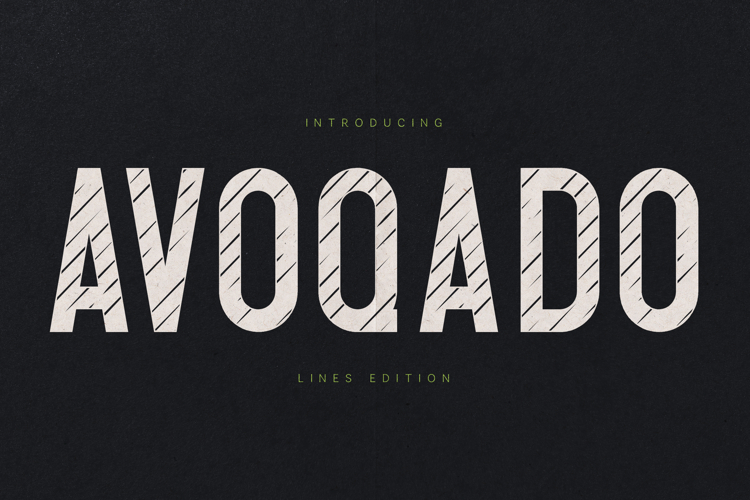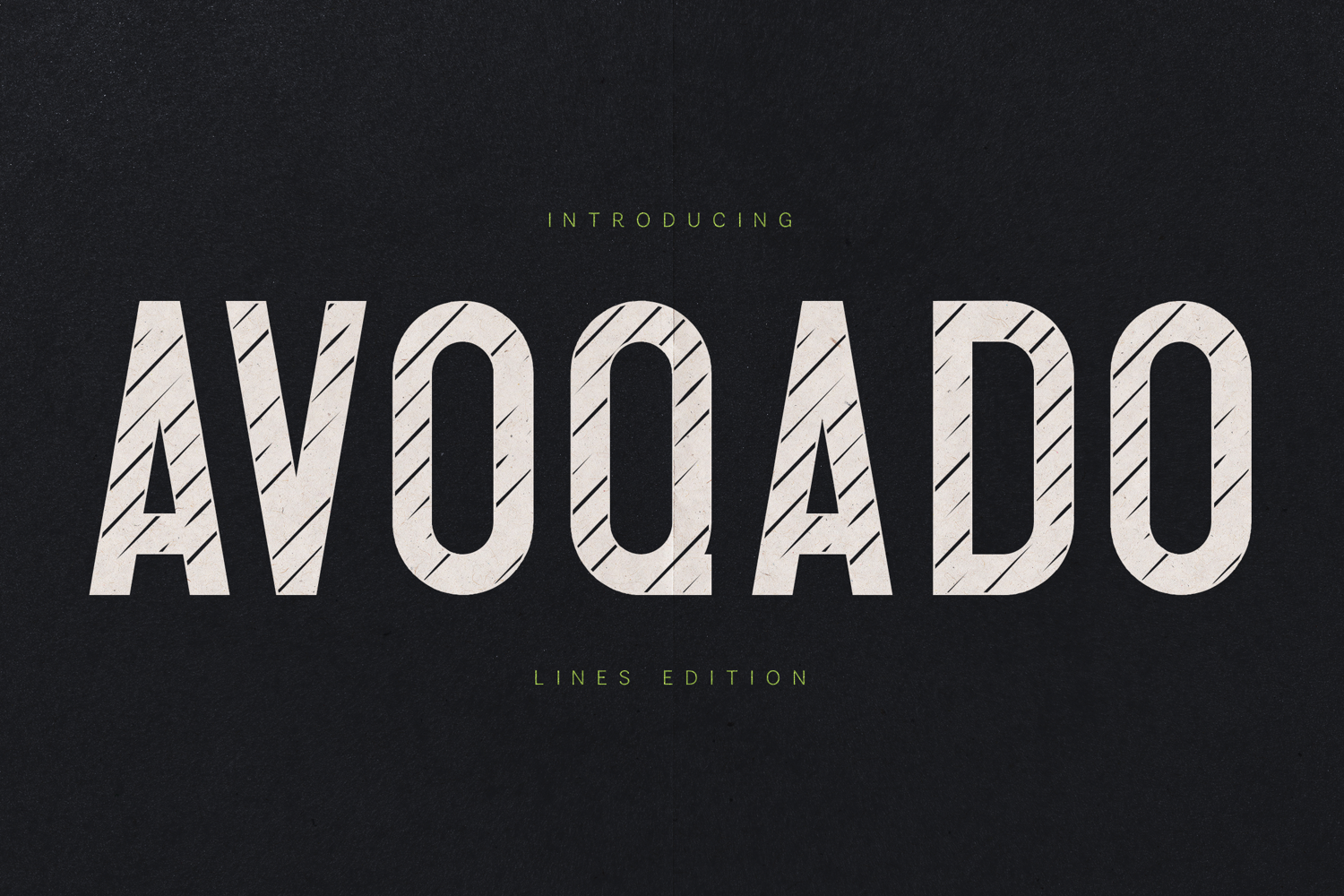
Avoqado Modern Vintage Display Font
Avoqado is a bold modern display font inspired by vintage typography and classic editorial lettering. The design combines strong geometric letterforms with subtle decorative line details that give the typeface a distinctive textured character.
The font features tall condensed proportions and confident strokes, creating a powerful visual presence while maintaining clean readability. The diagonal line pattern inside the letters adds an expressive handcrafted look, making the typeface stand out in bold typographic compositions.
Avoqado works perfectly for posters, branding, editorial layouts, album covers, packaging design, vintage style graphics, bold headlines, logo design, signage, modern retro compositions, and creative typography projects.
The font includes uppercase letters, lowercase letters, numbers, punctuation, symbols, and extended multilingual characters, allowing designers to build professional layouts for international typography projects.
With its bold structure and vintage inspired aesthetic, Avoqado delivers a distinctive display typeface for strong modern typography and expressive design layouts.